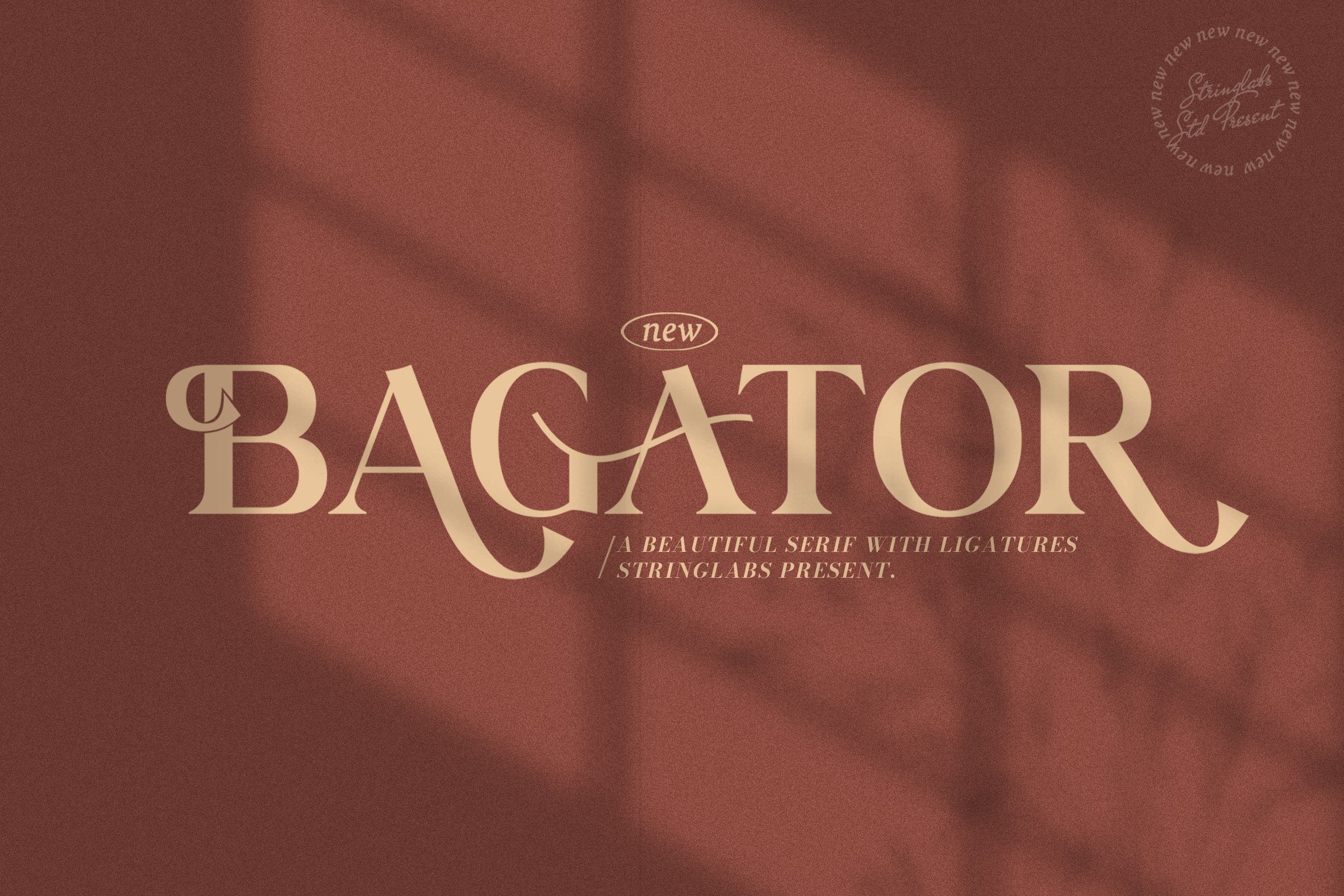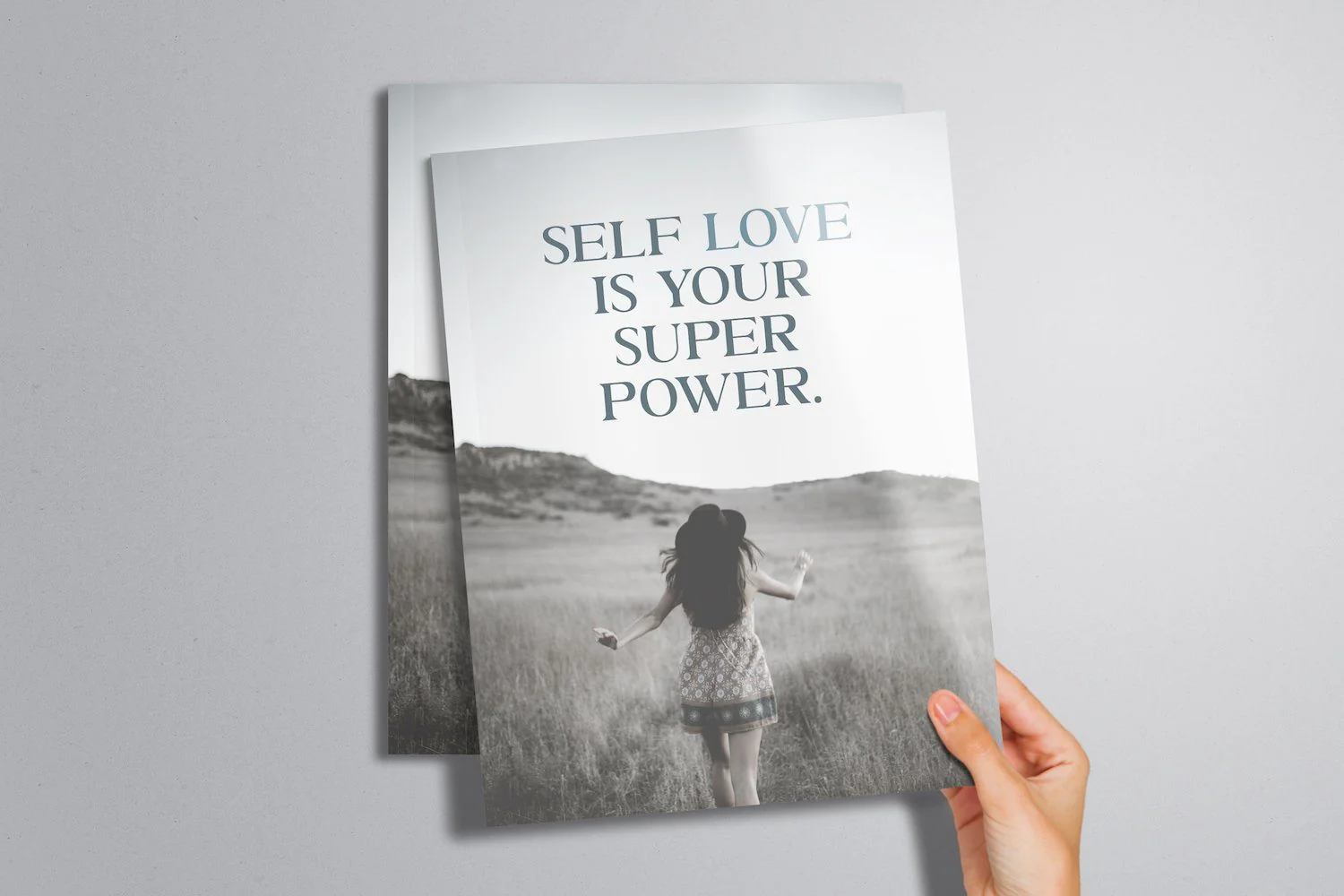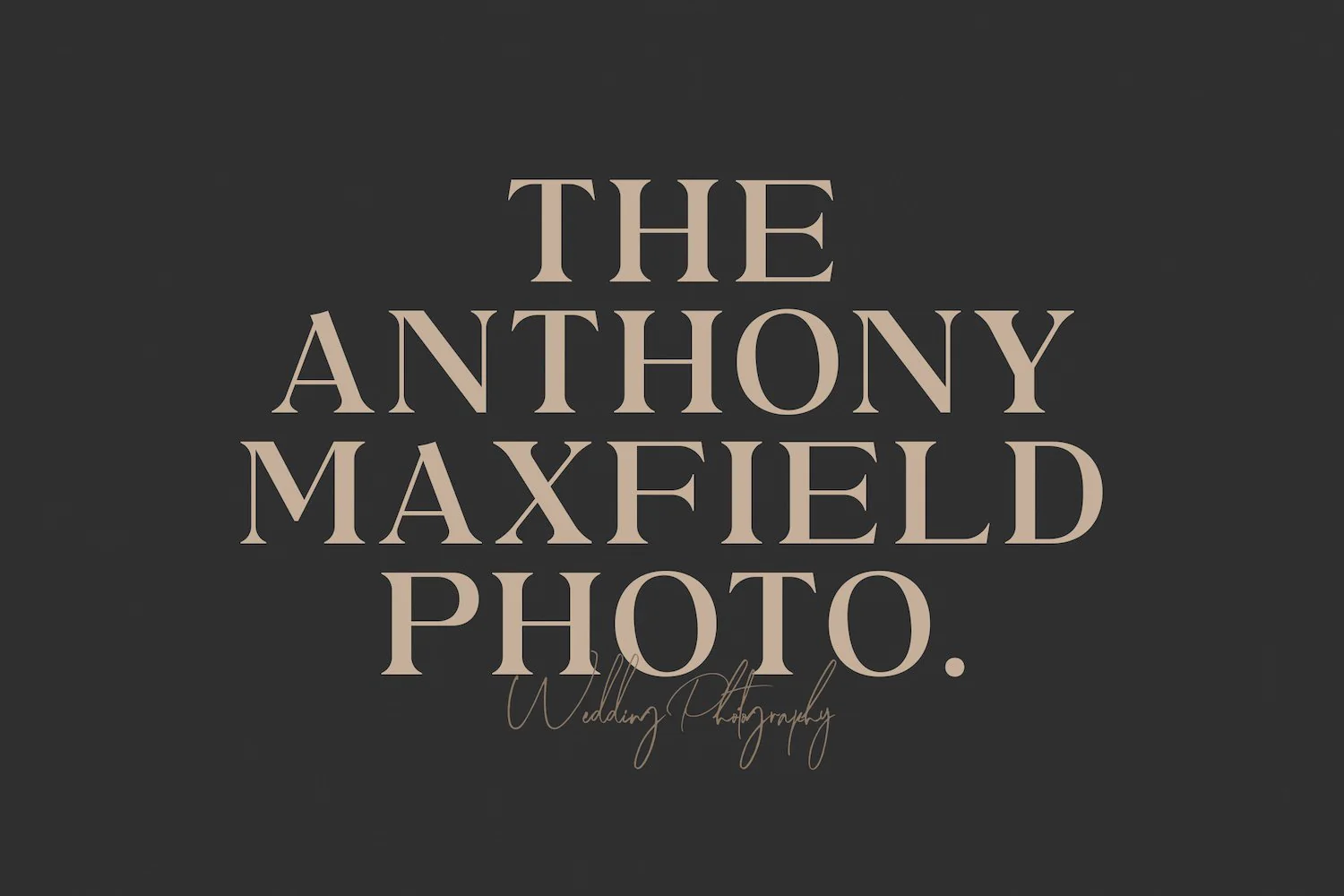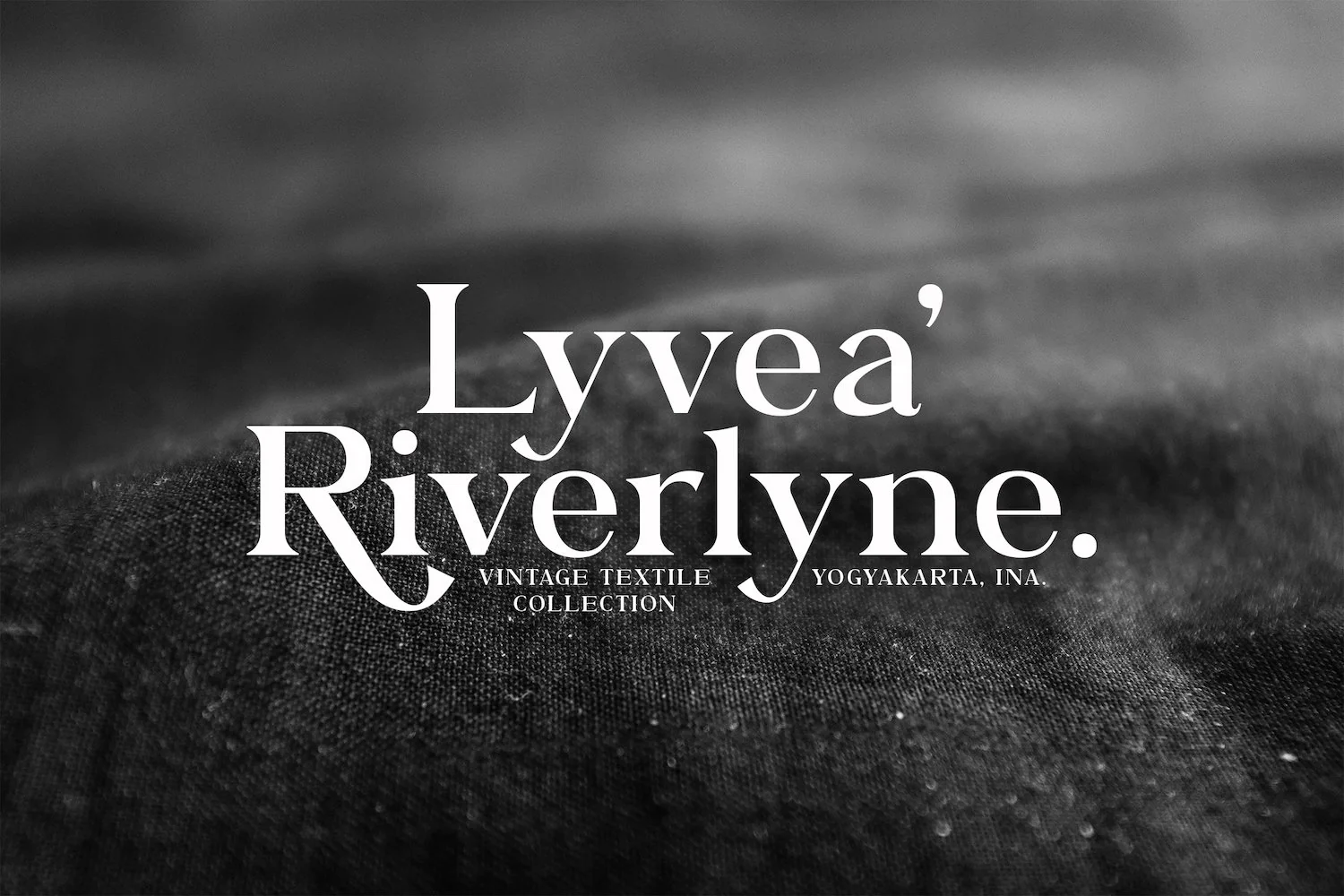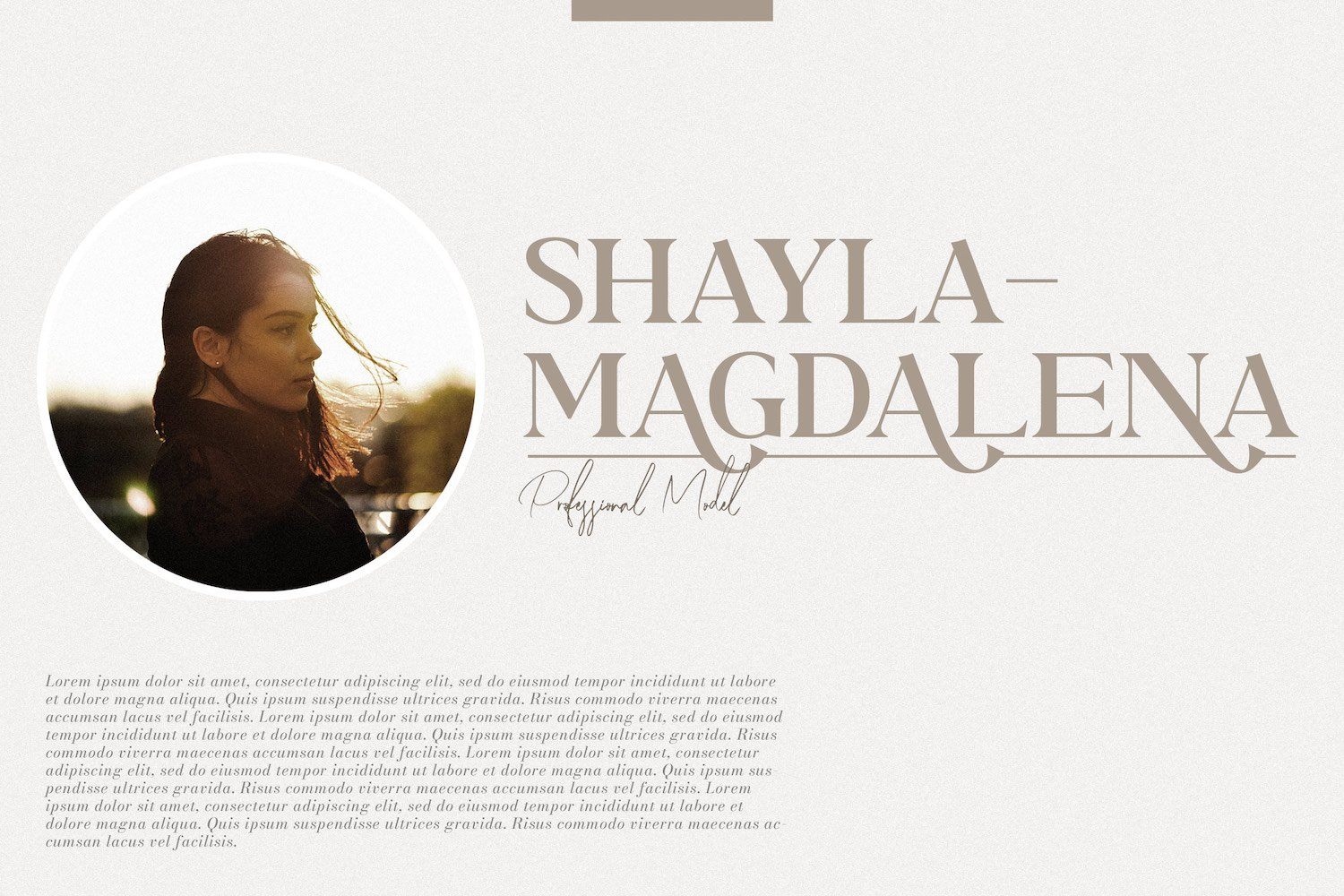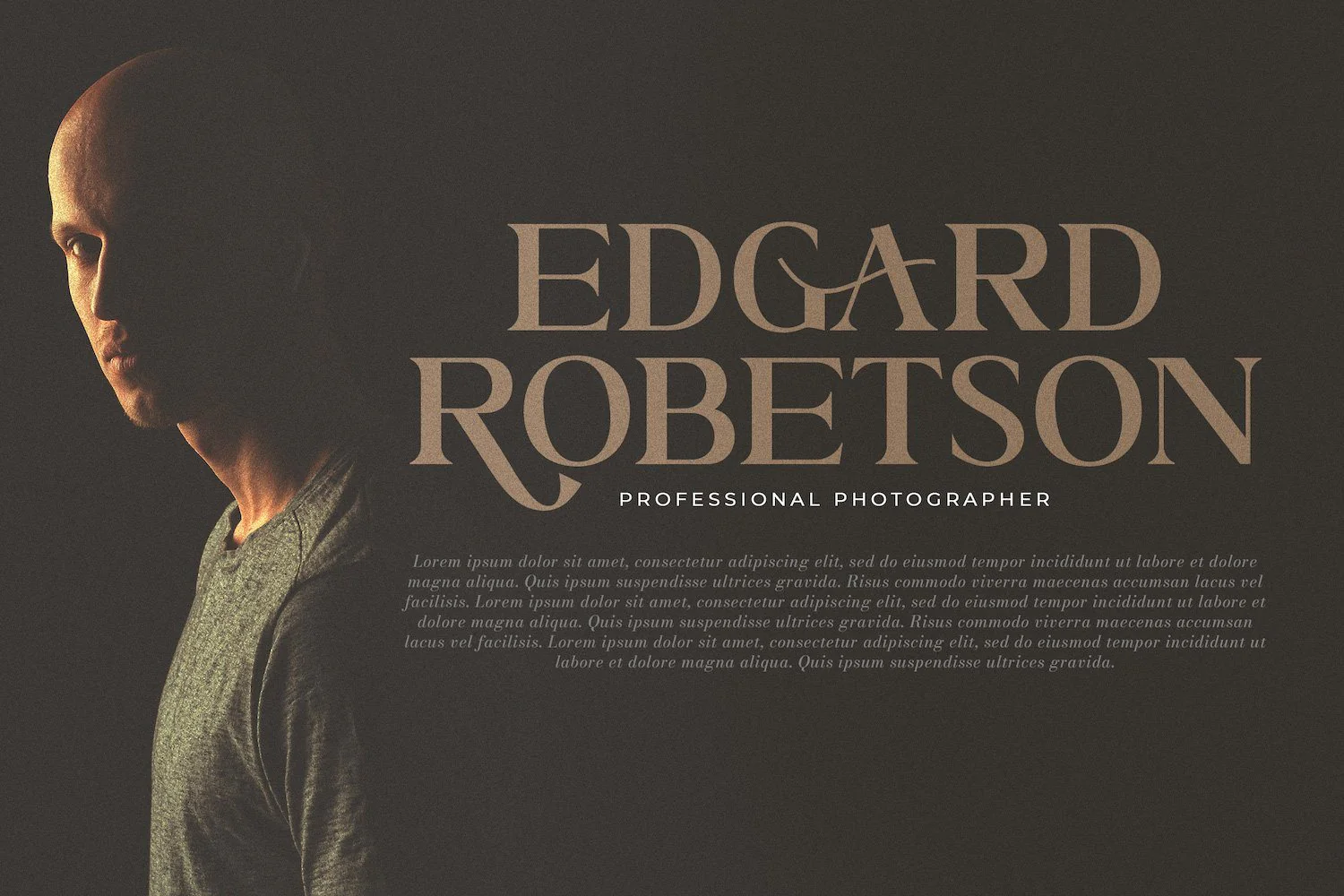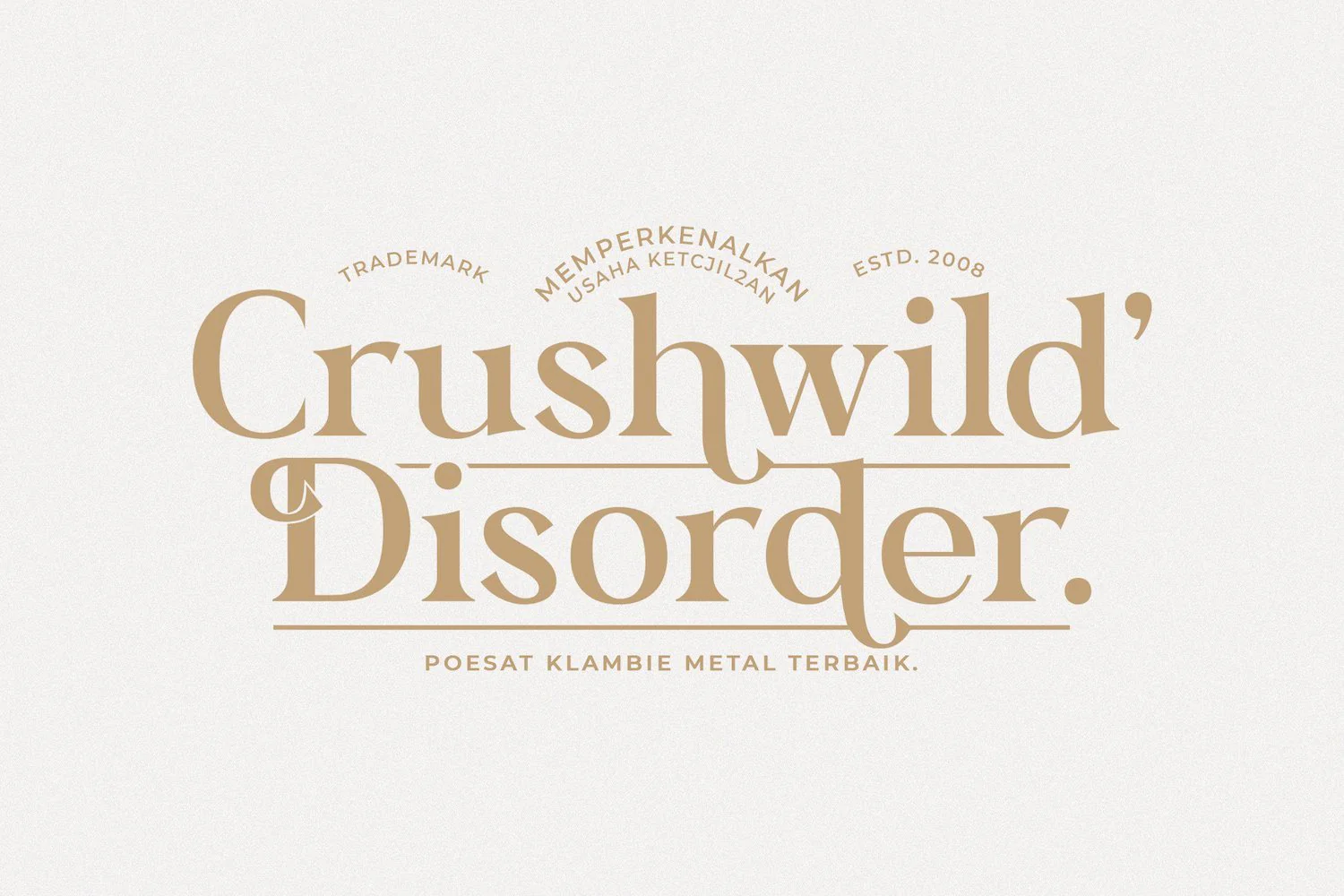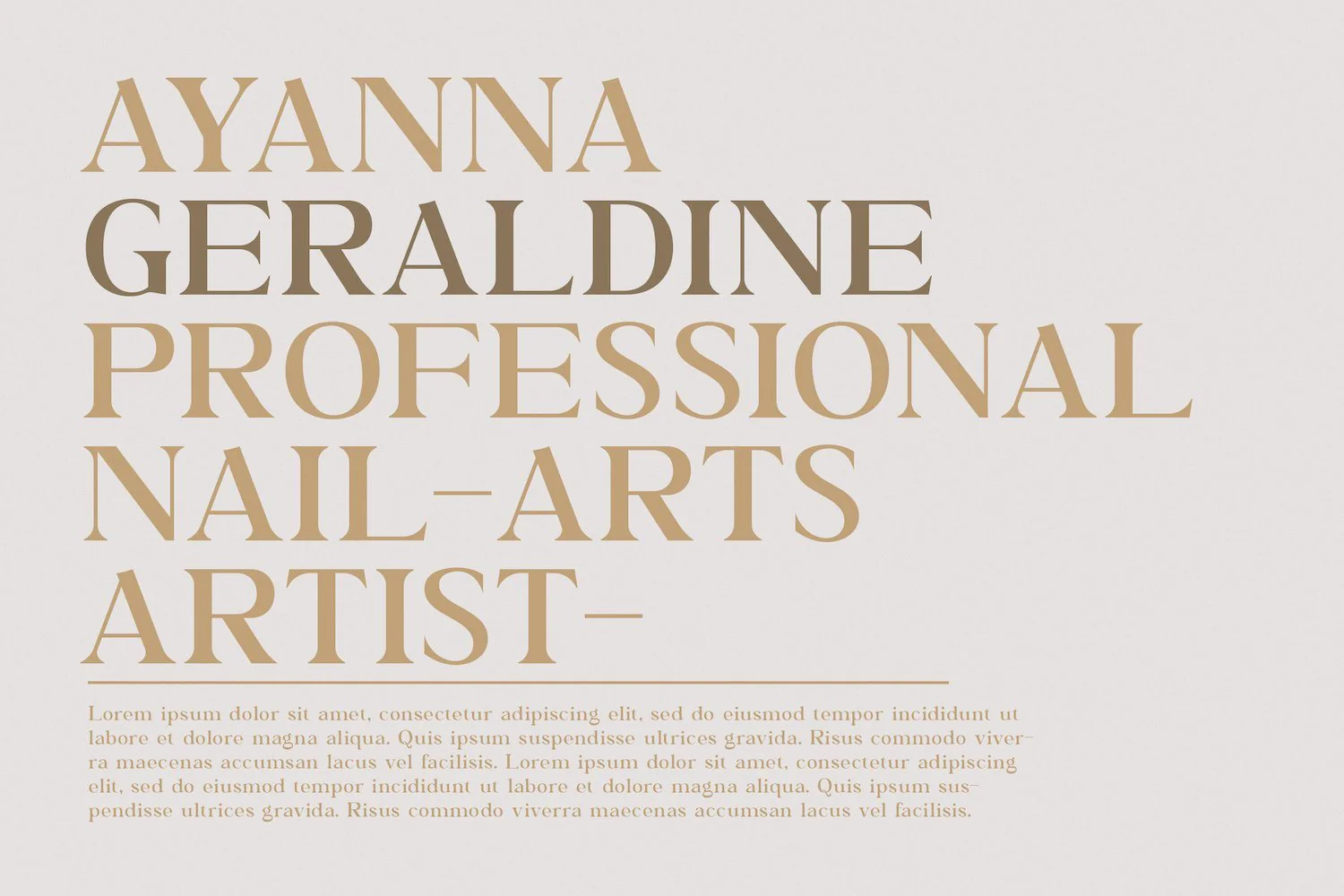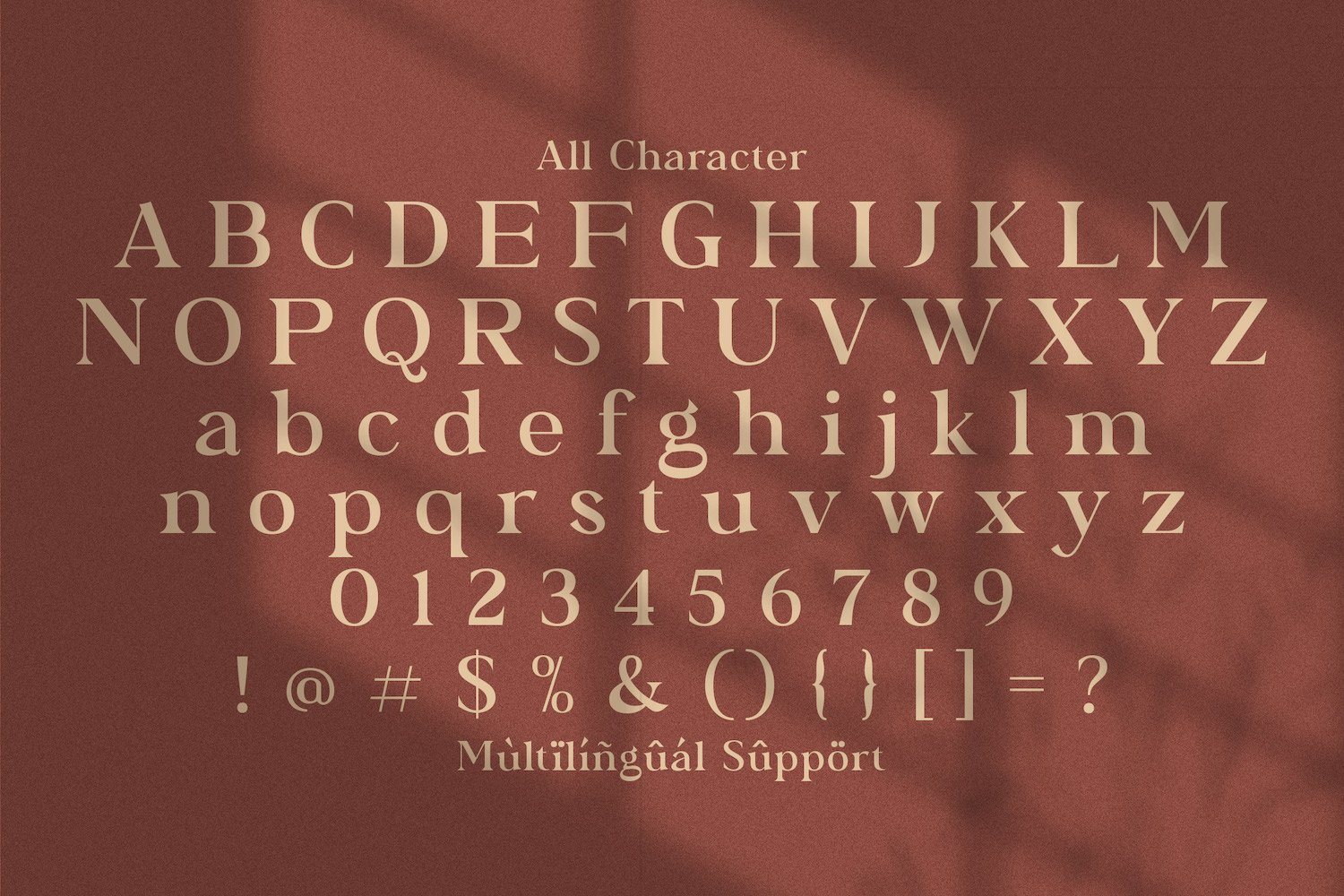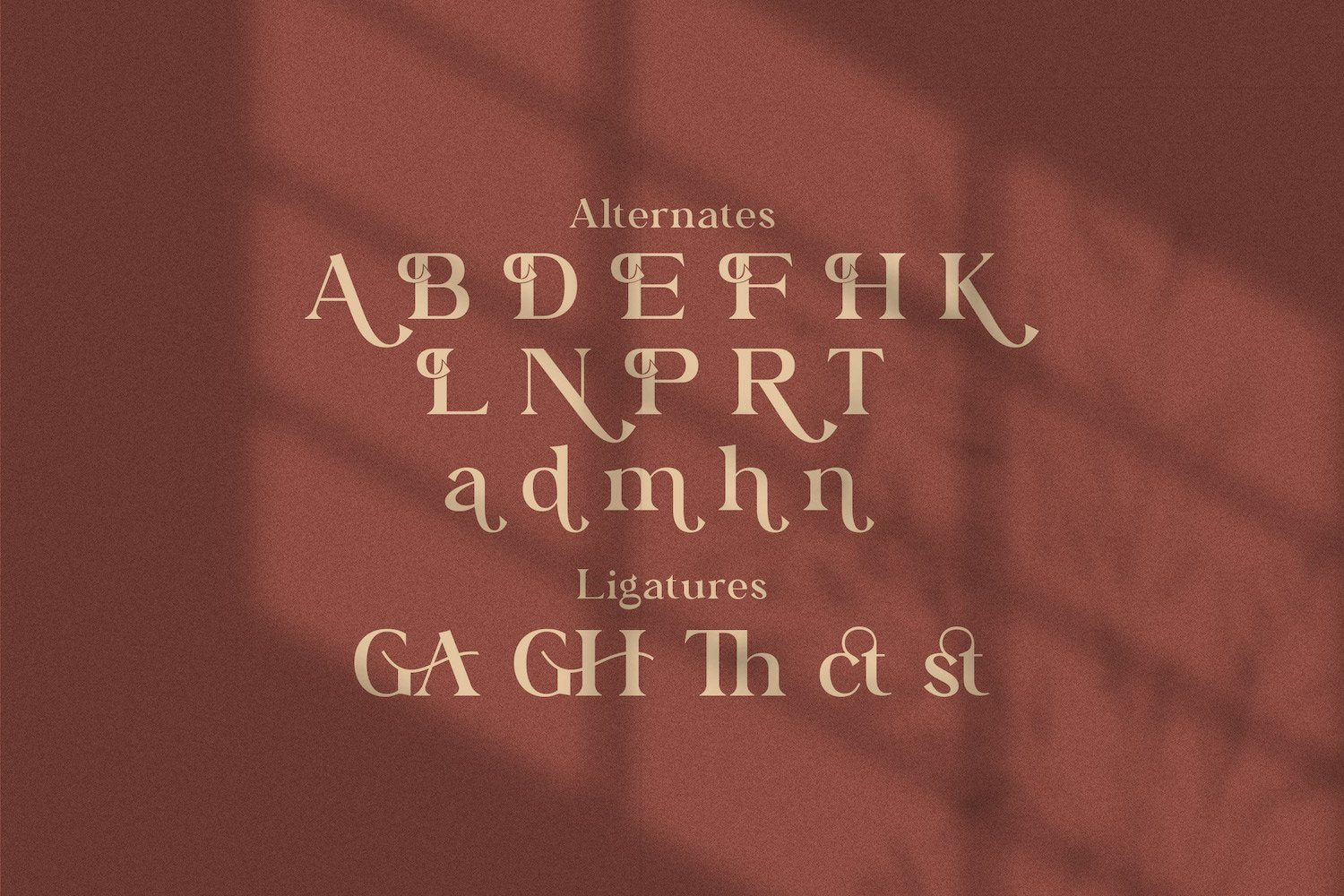
Bagator - Classic Serif Font
Introducing Bagator - Classic Serif Font
Bagator is an authentic and neat serif font. It can easily be matched to an incredibly large set of projects, so add it to your creative ideas and notice how it makes them stand out!
Introducing Bagator - Classic Serif Font
Bagator is an authentic and neat serif font. It can easily be matched to an incredibly large set of projects, so add it to your creative ideas and notice how it makes them stand out!